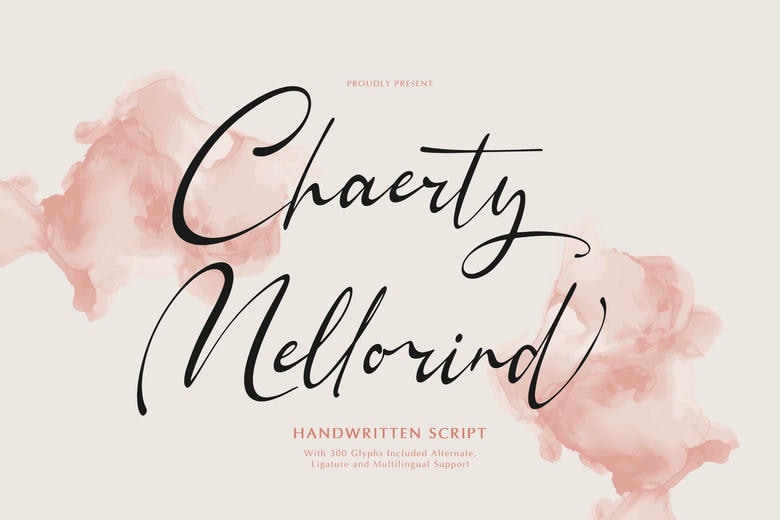
Chaerty Mellorind Font
Chaerty Mellorind is a beautifully elegant handwritten script typeface full of class and expressive savoir-faire. It has very tall sweeping ascenders, fluid balanced strokes which makes it airy, romantic, but still very legible. There is a natural organic rhythm to each of the letters giving them the fluctuating flow of hand drawn, calligraphic expressions. The 300 glyphs are provided with alternates, ligatures and multilingual support; this guarantees creative freedom providing a large freedom of projects.
Chaerty Mellorind is the ideal wedding stationery and branding to small artisan products, sophisticated editorial designs, personal journaling and when a warm, sophisticated design is needed. It has a certain artistic taste that features a personal and luxurious touch on compositions.
Chaerty Mellorind Handwritten Script Font